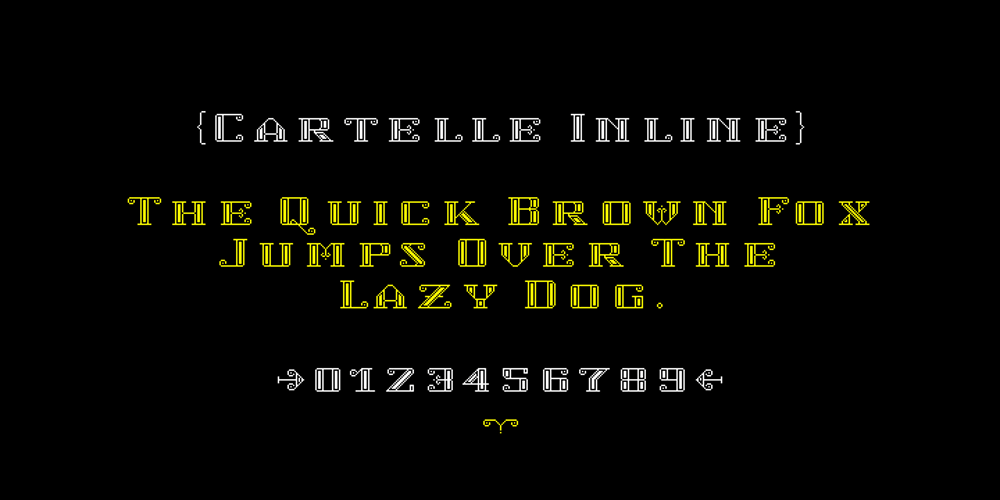
Cartelle Inline Font Family was designed by Richard D. Granados and published by Stereo Type Haus. Cartelle Inline contains 2 styles and family package options. Cartelle is a sexy small caps bitmap design characterized by it’s whimsical curls and ornate flourishes. It’s inspiration came from a French poster design from the early 1900’s.